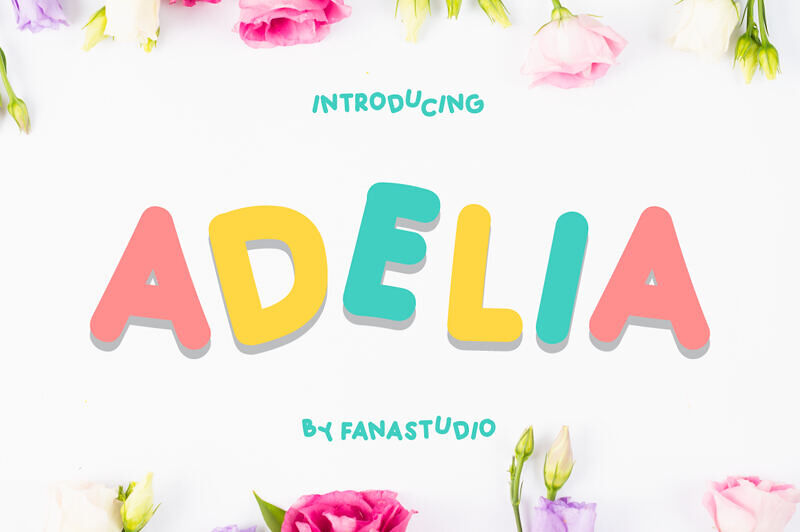
Adelia is a playful, handcrafted font by Fanastudio, featuring lively, bouncy glyphs that bring a sense of movement and charm to any design. Carefully refined for smooth lines and clean curves, it cuts effortlessly on Cricut and Silhouette machines, ensuring precise and polished results every time.
While the font includes uppercase letters only, its whimsical style makes it a delightful choice for print projects, logos, branding, and more. Adelia is especially well-suited for children-focused designs, including storybooks, movie posters, toy packaging, games, and apparel. It also adds a sweet, personal touch to greeting cards and invitations.